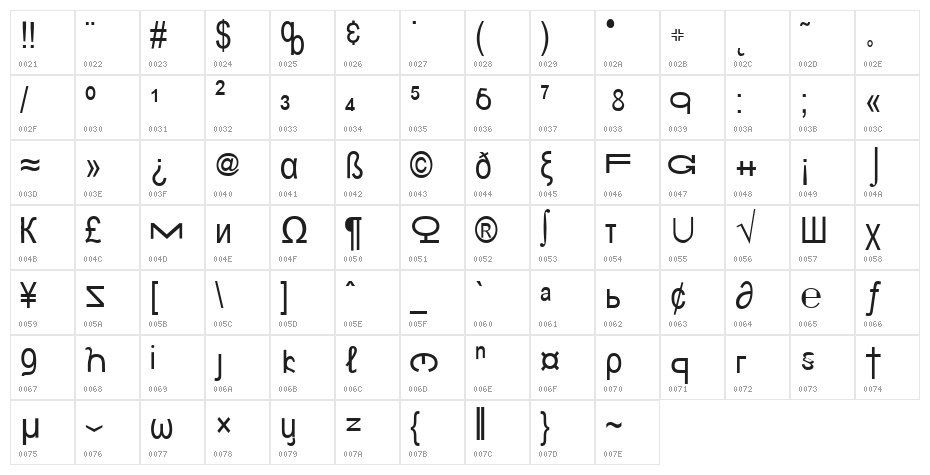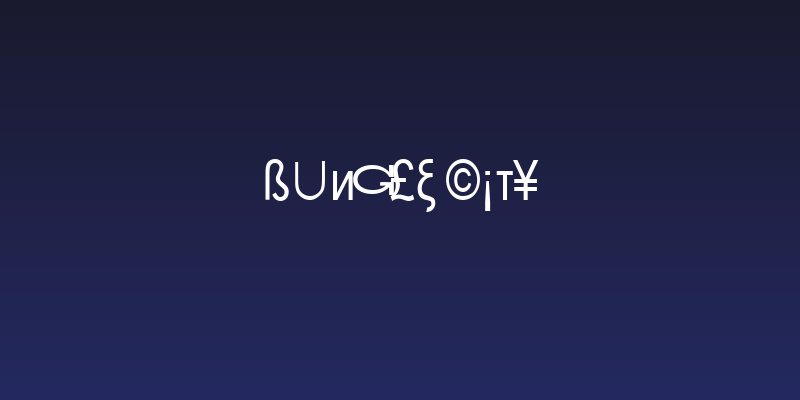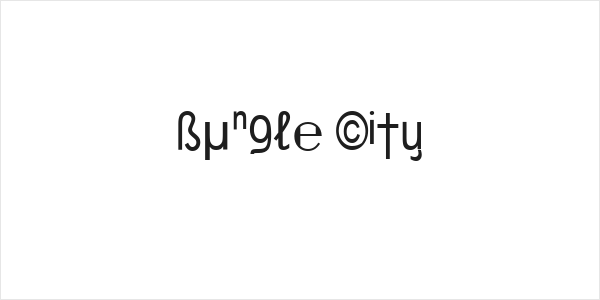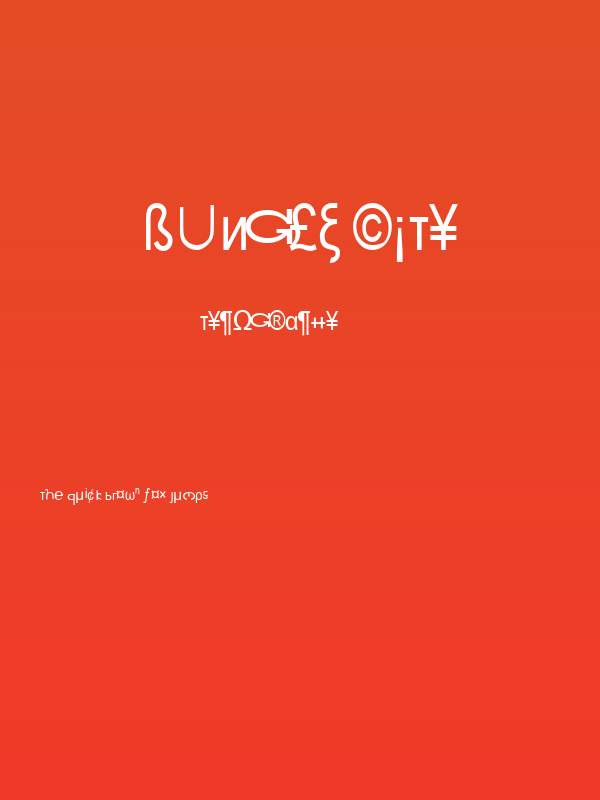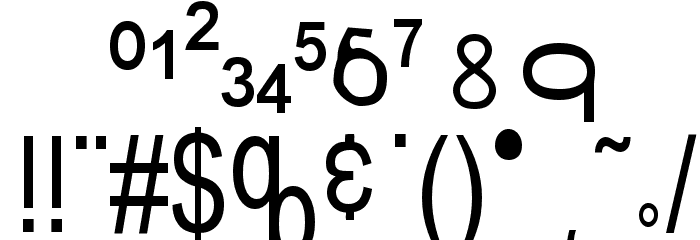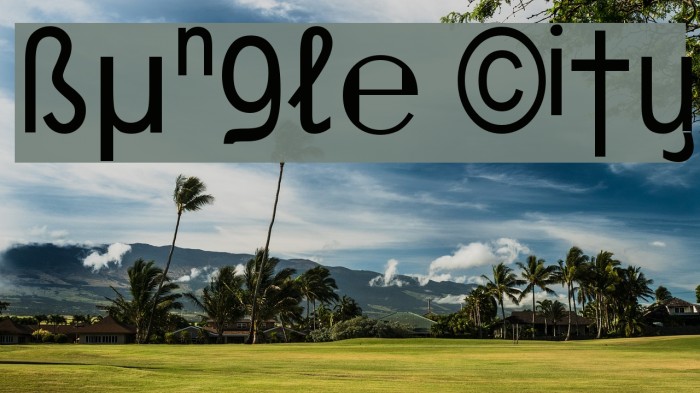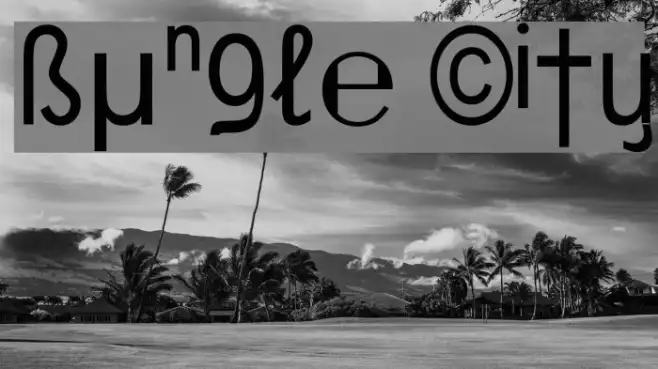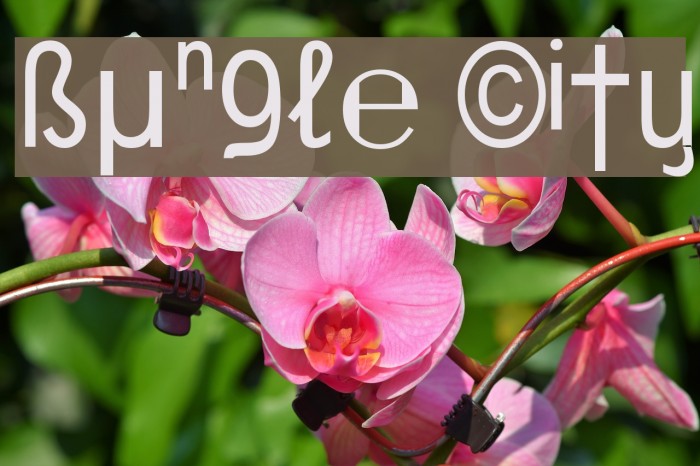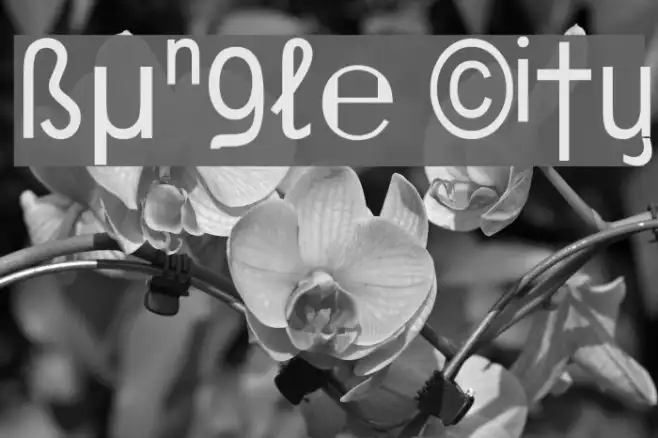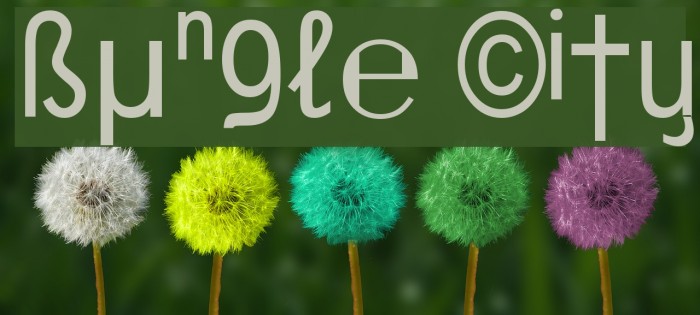
Bungle City Font
Bungle City Description
This font features a unique and eclectic design with a mix of geometric and abstract elements. The characters are bold and have a playful, almost whimsical quality. The uppercase letters are particularly striking, with some characters incorporating unexpected shapes and lines. The lowercase letters maintain a consistent style, though they are more subdued compared to the uppercase. Numbers and special characters follow the same playful theme, adding to the font's overall quirky aesthetic. This font is ideal for creative projects that require a distinctive and eye-catching typeface.